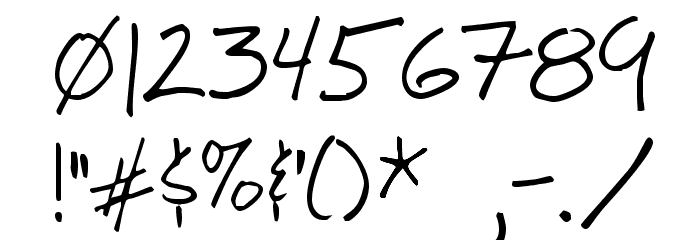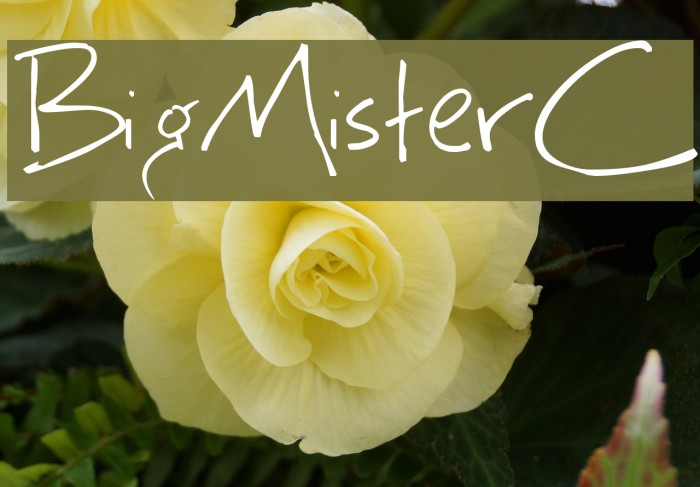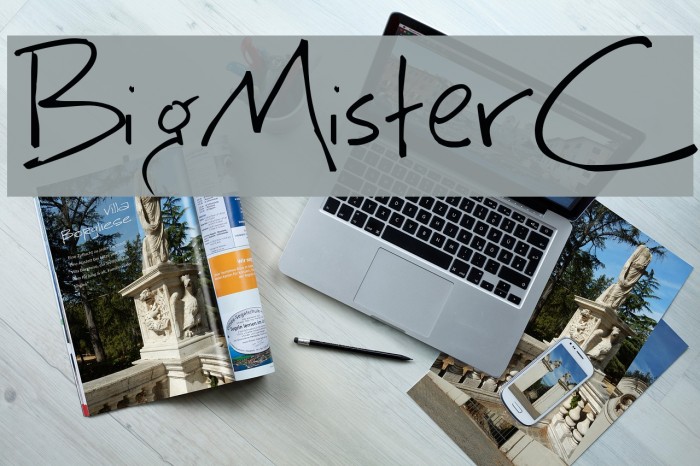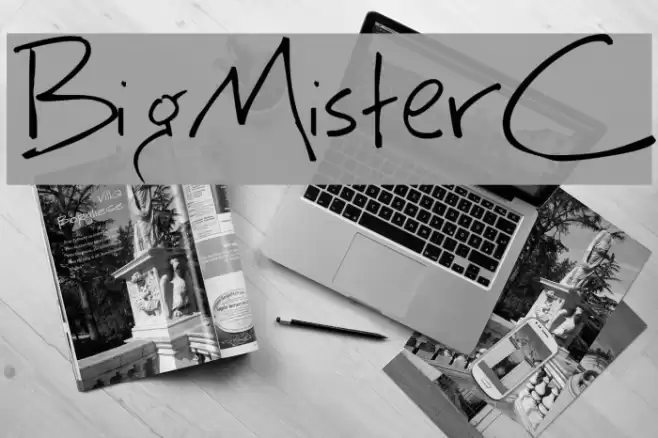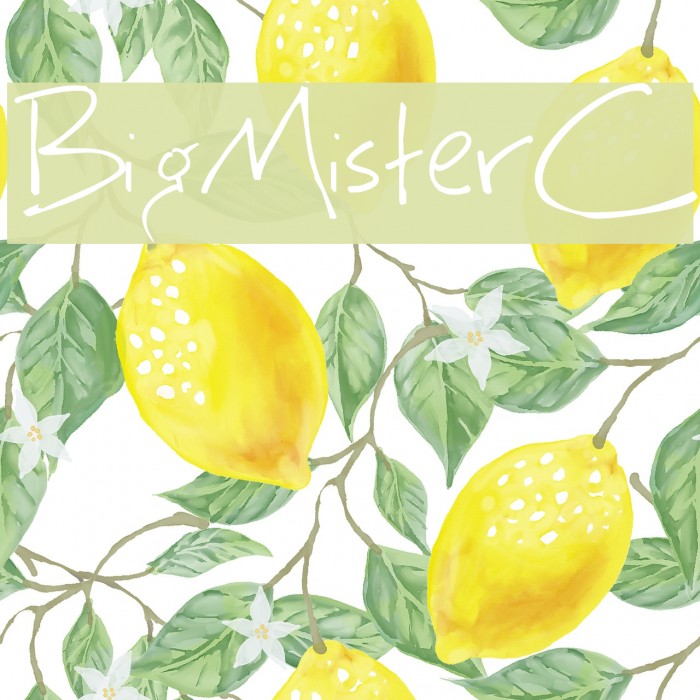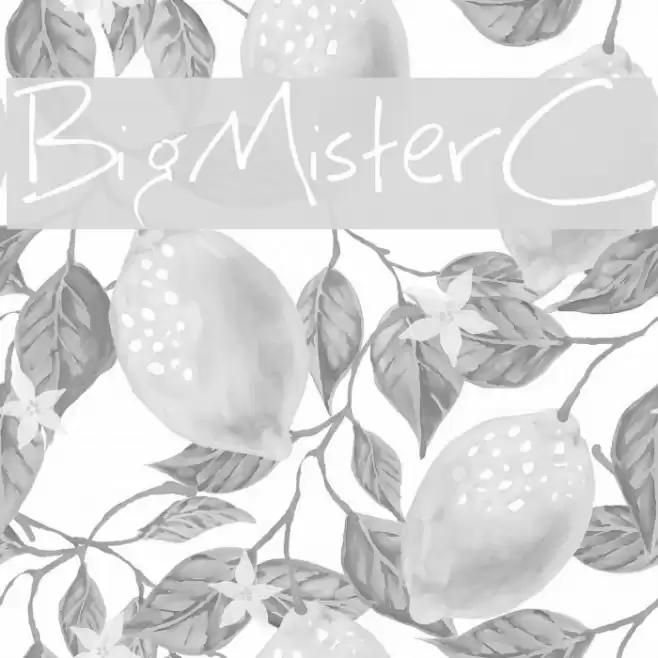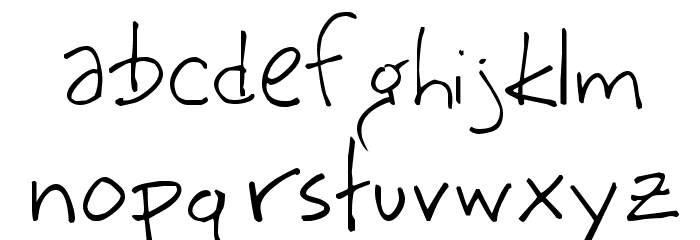
BigMisterC Font
BigMisterC Description
This font exhibits a playful and informal handwritten style, characterized by its loose and casual strokes. The letters have a natural flow, with varying stroke thickness that adds a dynamic and lively feel. The uppercase letters are bold and slightly slanted, while the lowercase letters maintain a consistent, freeform appearance. Numbers and special characters follow the same whimsical design, making the font suitable for creative and informal contexts. The overall look is approachable and friendly, ideal for projects that require a personal touch.
| Overall Style | Casual, Playful |
| Use Case | Headlines, Informal text, Creative projects |
| Proposed Projects | Ideal for greeting cards, children's books, personal blogs, and creative branding. |